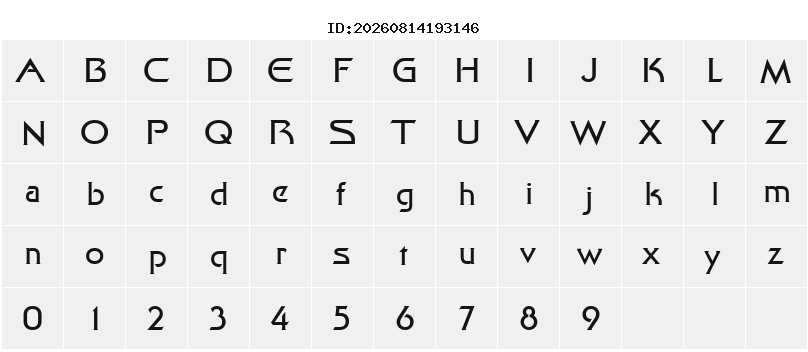
Stellar Preview
• Font Name: Stellar
• Font ID: Final Frontier 03-24-93 08:45
• Full Font Name: Stellar Regular
• Version: 1.0 Mon Aug 15 12:50:05 1994
• PostScript Name: FinalFrontier
About Stellar.ttf
Stellar.ttf is a modern, elegant sans-serif font designed for ultimate readability and visual harmony. Perfect for branding, headlines, web design, and print materials.